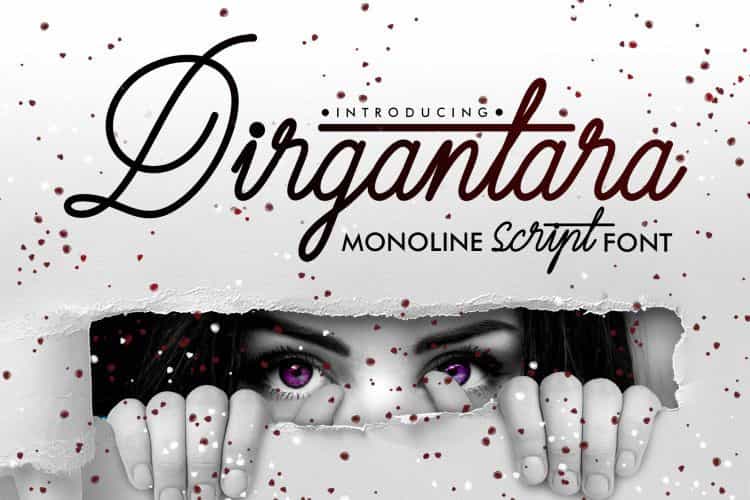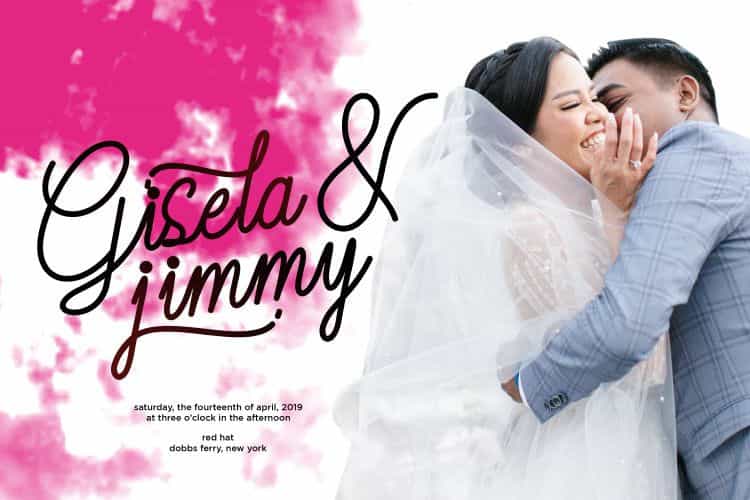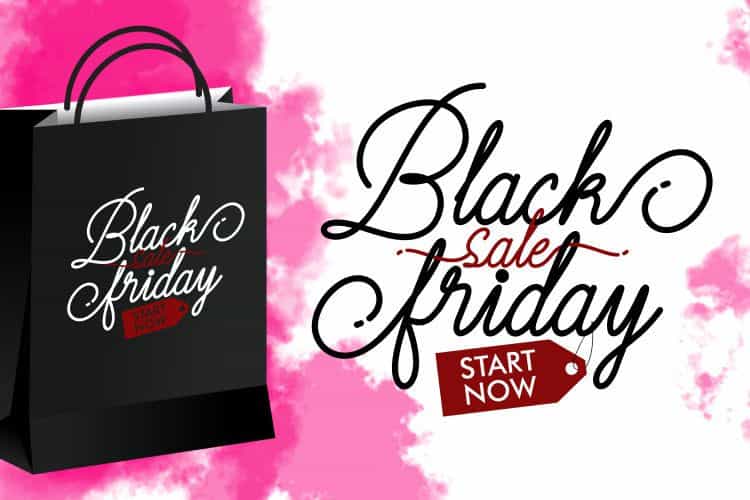
Discover Dirgantara Script Font, part of the Calligraphy Handwritten collection—a versatile and unique font perfect for adding a personal touch to your projects. Download it for free and enjoy crafting designs with style, from invitations to social media posts. This font is available exclusively for personal use, giving you the freedom to create without limits. Unlock your creativity with Dirgantara Script Font today!
Dirgantara Font – A new monoline script font. This is a font style that has the vintage look, It was handlettered and it gives you an old time feel. The app is created and shared by Alfredo. fk. Dirgantara Script Font is a new & modern script font. It is also written in a calligraphy style and has wonderful decorative characters. It is just right for invitations, greeting cards, branding materials, business cards, quotes and posters.